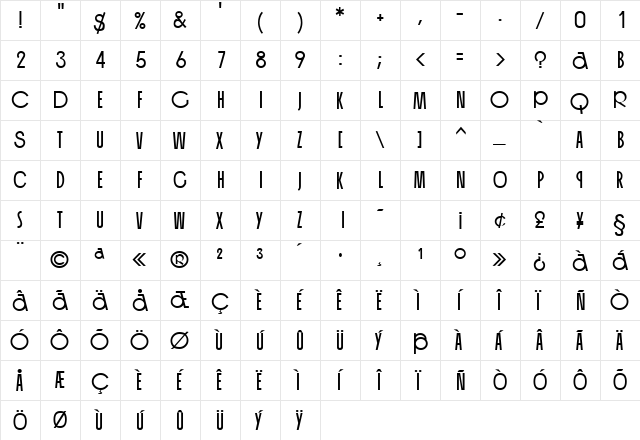
Kansas Normal
Design Context for Kansas Typeface
Kansas is a composed and adaptable typeface that performs quietly and consistently across a wide range of design contexts.